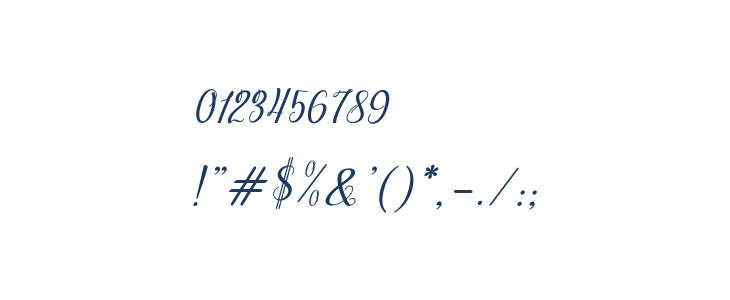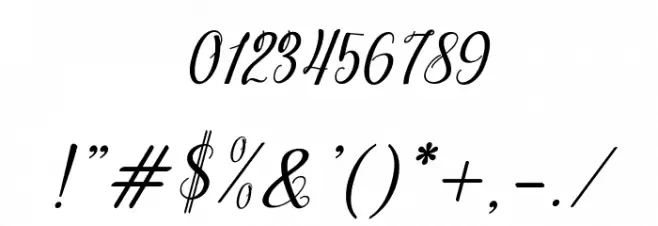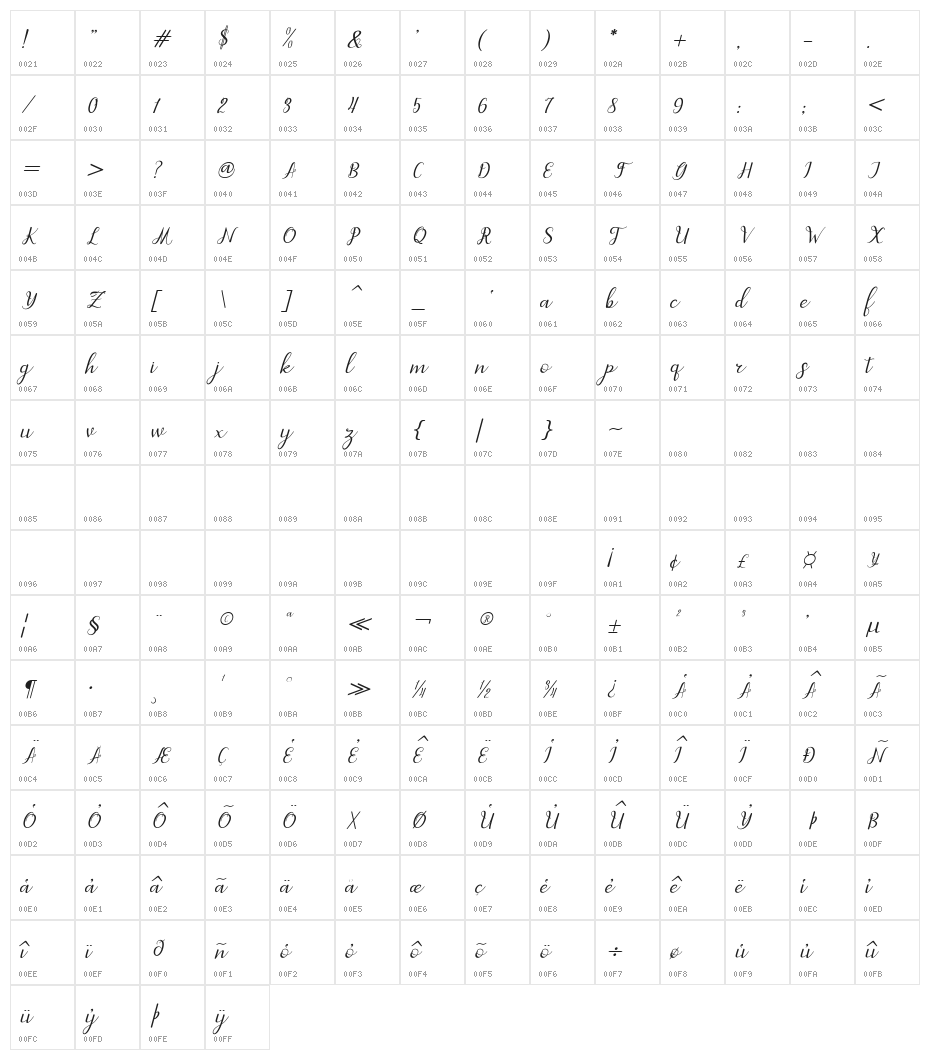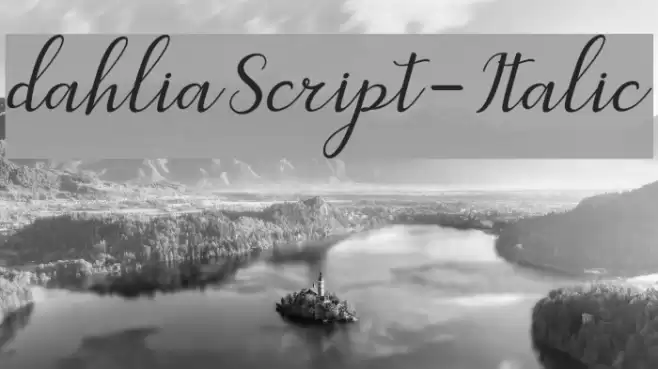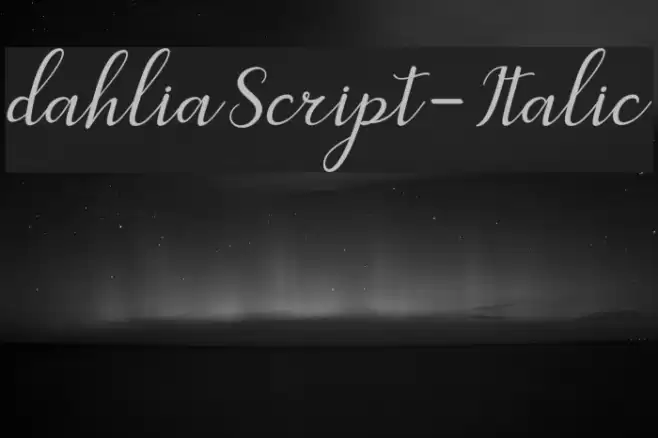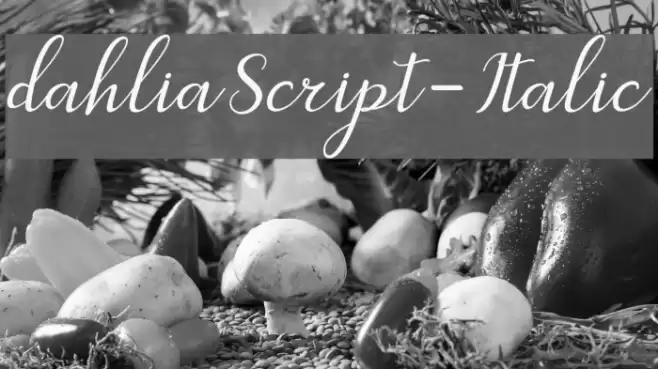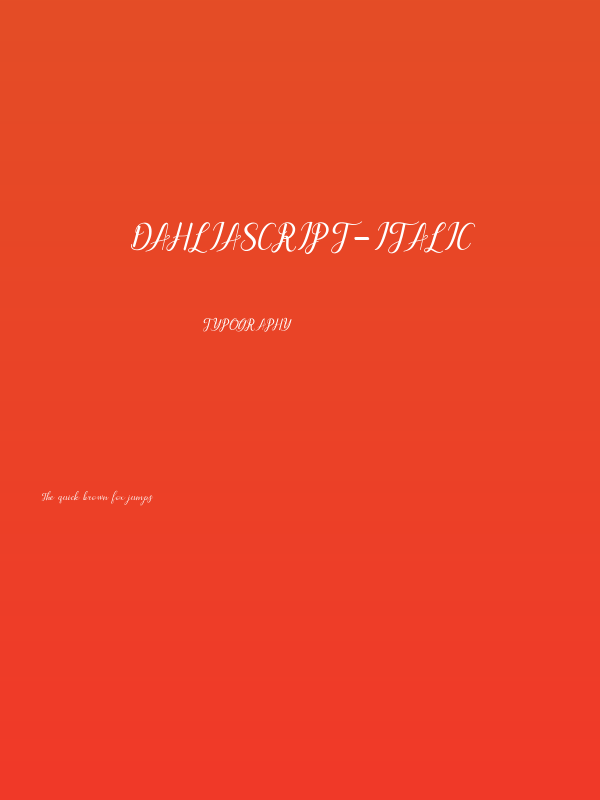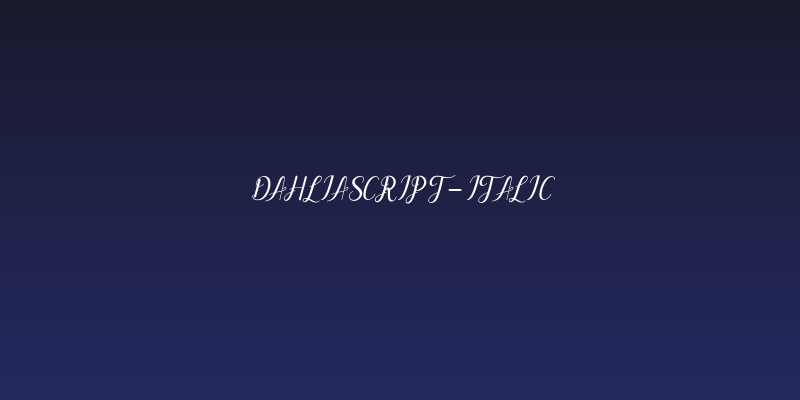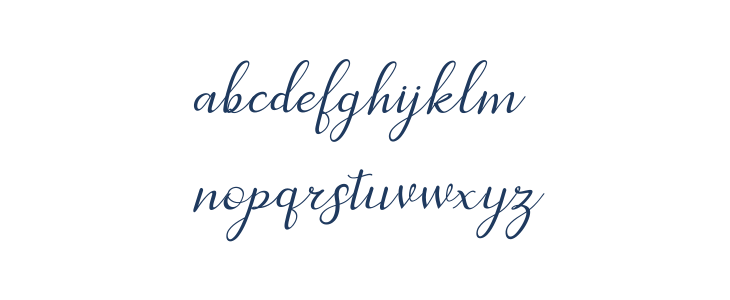
dahliaScript-Italic Font
dahliaScript-Italic Description
This elegant script font features a flowing, cursive style with a sophisticated flair. The characters are connected with smooth, sweeping strokes, creating a sense of fluidity and grace. The uppercase letters are ornate and slightly larger, adding a touch of formality, while the lowercase letters maintain a consistent rhythm and balance. The numerals and special characters are designed to complement the overall aesthetic, ensuring a cohesive look across all text. This font is perfect for projects that require a touch of elegance and sophistication.
| Overall Style | Elegant, Sophisticated |
| Proposed Projects | Ideal for wedding invitations, elegant branding, personal stationery, and high-end product packaging. |